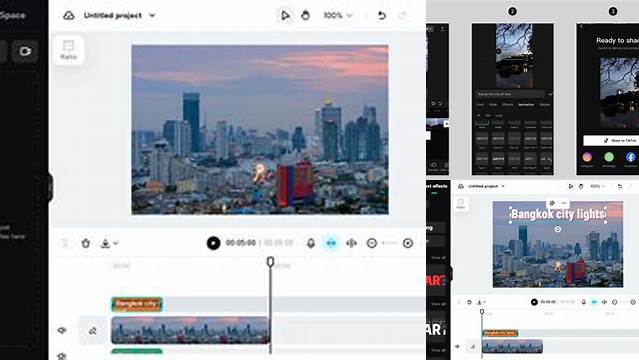
Best Fonts For Video Editors: Ultimate Guide
Choosing the right fonts is a critical yet often overlooked aspect of video editing. Fonts do more than just display text; they communicate tone, style, and brand identity. Selecting the best fonts for video editors can significantly enhance your visual storytelling, making your videos more engaging and professional. In this article, we’ll dive deep into the world of typography, exploring font categories, practical tips for font selection, and recommendations for popular video editing software. So, let's get started, guys!
Why Fonts Matter in Video Editing
So, why should you care so much about fonts, you might ask? Well, fonts are the unsung heroes of video. They're the silent communicators that can make or break your message. The right font can instantly grab your audience's attention, while the wrong one can make your video look amateurish or confusing. Think about it: a playful, bubbly font won't work well in a serious documentary, right? That's why the best fonts for video editors are those that are carefully selected to match the video's overall tone and style. They can convey a wide range of emotions, from excitement and joy to seriousness and suspense. Fonts establish the visual hierarchy, guiding the viewer's eyes and emphasizing crucial information. They add visual interest, making your videos more memorable and enjoyable to watch. Carefully chosen fonts enhance readability, ensuring your message is clear and concise. They boost your brand identity by aligning with your brand's personality and values. They create a cohesive and professional look, making your videos stand out from the crowd.
The importance of font selection extends beyond mere aesthetics. Readability is paramount. A font that is beautiful but hard to read will do more harm than good. Your audience needs to understand the text without straining their eyes. The choice of font impacts the overall mood of your video. A bold, modern font may suit a trailer for an action film, while a more elegant serif font might be better for a wedding video. Font selection also reflects your brand identity. Consistency in font usage across all your video projects helps build brand recognition and trust. Selecting the right fonts is an investment in the quality and effectiveness of your video content. It shows that you care about the details and are committed to delivering a polished final product. Using the best fonts for video editors can significantly enhance your visual storytelling, adding impact and professionalism to your work. So, take the time to choose the right fonts, and you'll see the difference!
The Impact of Font Choices on Video Aesthetics
The aesthetic impact of fonts in video editing is huge, you guys! The fonts you choose can completely transform the look and feel of your video. Let's say you're making a commercial for a luxury product. Using a sleek, elegant serif font can instantly convey sophistication and quality. On the other hand, if you're producing a fun, upbeat video for a children's toy, a playful sans-serif font might be a better choice. The right font can reinforce your video's message and enhance the viewer's emotional connection. Font choice directly influences the overall mood and tone of the video. A bold, impactful font can create a sense of urgency or excitement, while a softer font can create a sense of calm or nostalgia. Font selection can also help establish a visual hierarchy, guiding the viewer's attention to the most important information. Well-chosen fonts improve readability, ensuring that your text is easy to understand, even at a glance. Fonts contribute to your brand's visual identity, reinforcing brand recognition and consistency. It's important to remember that your font choices should align with your overall design and aesthetic goals.
Different font styles evoke different emotions. Serif fonts, with their small decorative strokes, often convey a sense of tradition, elegance, and sophistication. These fonts are great for formal videos, such as documentaries or corporate presentations. Sans-serif fonts, which lack these strokes, feel modern, clean, and approachable. These fonts are perfect for contemporary videos, such as tutorials, social media content, or websites. Script fonts, which mimic handwriting, bring a touch of creativity, personality, and playfulness. These are ideal for videos that want to appear friendly, welcoming, and artistic. Display fonts are unique, attention-grabbing fonts designed to be used sparingly for titles and headlines. They are excellent for making key messages pop. Understanding the emotional impact of each font style will help you make informed decisions and create videos that resonate with your audience. Using the best fonts for video editors, you can create videos that not only inform but also captivate and engage your viewers.
Font Categories: A Quick Guide for Video Editors
Alright, let's break down the different font categories, shall we? This will help you when you start searching for the best fonts for video editors. Understanding these will help you pick the best font for your project.
Serif fonts, like Times New Roman and Georgia, have small decorative strokes called serifs at the end of their letters. They often give a classic, elegant, and professional feel. They're excellent for body text in videos where readability is crucial, such as educational content or documentaries. Due to their legibility, serif fonts are generally a safe bet for longer text passages. Consider the setting: a historical video would benefit from a classic serif, while a fashion video might go with a more modern variation. They bring a touch of sophistication and can work well for titles and headings when you want to convey a sense of tradition or authority. Common examples include Times New Roman, Garamond, and Georgia. Serif fonts are considered more formal and traditional. Therefore, you should avoid these fonts in more modern content, such as tech review videos.
Sans-serif fonts, like Arial and Helvetica, lack the serifs, giving them a clean, modern look. They're ideal for headings, titles, and on-screen text in videos that require a contemporary feel. They are generally easier to read on screens. They are the perfect choice for video projects aimed at a younger audience. Their simplicity makes them highly readable at various sizes and resolutions. These fonts are versatile, lending themselves to almost any video project, from marketing materials to explainer videos. The sans-serif font category is one of the most flexible and universally adaptable categories for video editing. Common examples include Arial, Helvetica, and Open Sans. These fonts convey a sense of modernity and simplicity, which is why they're used everywhere.
Script Fonts
Script fonts, like cursive handwriting, add a personal, elegant, and sometimes playful touch. They're perfect for videos that aim to showcase creativity or add a touch of personality. Think of wedding videos or cooking tutorials where a more artistic feel is desired. While they can add a unique flair, use them with caution, as they can be harder to read, especially at smaller sizes. Script fonts look great in titles and short phrases. Avoid using them in long blocks of text. This style of font is not for all types of content; they work best in creative or artistic projects. Common examples include Brush Script MT, and Lobster. Script fonts bring a touch of personality and are perfect for making your video content more memorable.
Display Fonts
Display fonts are designed to grab attention. They are ideal for headings, titles, and short phrases where you want to make a bold statement. These fonts have many styles, ranging from bold and chunky to artistic and stylized. Use them sparingly, as they can overwhelm the viewer if used excessively. They are perfect for trailers, promotional videos, and any video that needs to stand out. Common examples include Impact, Bebas Neue, and Montserrat Black. These fonts are not suitable for lengthy text sections. The best fonts for video editors in this category are those that can make your message pop.
Tips for Choosing the Best Fonts for Your Videos
Choosing the right font is not just about picking a pretty face; it's about understanding your video's purpose and your brand's identity. Here's a guide to help you navigate the selection process:
Consider Readability
Readability is king, guys! The font needs to be easy to read, especially on screens, and at various sizes and resolutions. Test the font in your video editing software to ensure it looks good and is legible in different contexts. The right font should be readable on any background. So, try different backgrounds when selecting your fonts. Some fonts appear great on white but not on black, and vice versa. Prioritize fonts that offer clear letterforms and sufficient spacing between characters. The best fonts for video editors are those that prioritize clear communication. Make sure the font you choose is readable, even for viewers with visual impairments.
Match the Tone and Style
The font must match your video's tone and style. If your video is formal, then a serif font might be your best bet. If it's more modern and casual, then a sans-serif font could work. The font you choose should reflect the mood and message of your video. Select fonts that align with your brand's personality. Think of your brand's values and the image you want to project. If you are selling a product, the best fonts for video editors are those that align with the product. Don't use a playful font in a commercial for luxury products; it will be out of place. Carefully choose a font that enhances the overall visual appeal and aligns with your branding strategy.
Consider the Context
Think about where your video will be viewed. Will it be on a large screen or a mobile device? Different fonts perform better in different contexts. Choose fonts that are optimized for the viewing environment. The fonts you use should be legible on a variety of devices. Make sure the font you choose works with the platforms your audience uses. Consider your target audience when selecting fonts, since different demographics prefer certain styles. Remember to test your font in various contexts to ensure it looks good everywhere.
Limit Your Font Choices
Avoid using too many different fonts in a single video. Stick to two or three fonts max for a cohesive look. Use one font for headings and another for body text. Consistency in font usage strengthens your brand's identity. Maintaining a unified font style helps maintain consistency throughout your videos. This helps establish a professional and easily identifiable brand aesthetic. Limit the font choices to avoid visual clutter and ensure that your message is clear and easy to follow.
Test, Test, and Test Again
Before you finalize your font selection, test it in your video editing software. Try it on different backgrounds and with various text lengths. Ensure it works well in motion, as some fonts can look different when animated. See how the font appears at different sizes and resolutions. Be sure that you like the font, as this is crucial for any project. Use your selected fonts across multiple videos to create a consistent branding experience.
Top Font Recommendations for Video Editors
Choosing the right fonts can be the difference between a good video and a great one. Here are some of the best fonts for video editors, categorized by style, along with some additional tips and tricks:
For Professionalism
- Roboto: A versatile sans-serif font, highly readable, and works well for text-heavy content. It is a great all-around choice for professional videos.
- Open Sans: Another popular sans-serif font known for its clarity and readability, suitable for various video styles. It's an excellent option for creating a polished look.
- Lato: A clean and elegant sans-serif font that offers a professional appearance. It's excellent for corporate videos and presentations.
For Modern and Creative Projects
- Montserrat: A modern sans-serif font that is great for titles, headings, and short text. Its geometric design gives a contemporary feel.
- Bebas Neue: A bold sans-serif font perfect for attention-grabbing titles and headlines. Its strong presence is great for promotional videos.
- Poppins: A geometric sans-serif font that is versatile and readable, suitable for various applications, including modern and creative projects.
For a Touch of Elegance
- Playfair Display: A classic serif font with a sophisticated design, ideal for adding a touch of elegance. It works well for titles and headings.
- Lora: A well-balanced serif font, suitable for both titles and body text, making it an excellent choice for more formal or artistic videos.
- Crimson Text: A classic serif font that delivers a traditional yet readable aesthetic. Best suited for content that requires a classic feel.
For Playful and Casual Projects
- Raleway: A stylish sans-serif font that has a light and playful feel. Great for videos that are fun and approachable.
- Cabin: A geometric sans-serif font, offering a contemporary look. It is great for a wide range of video projects.
- Fredoka One: A bold and friendly sans-serif font that adds personality to your videos.
Font Usage in Popular Video Editing Software
Let's get into how these fonts work within the most popular video editing software. Knowing where to find and use your fonts is essential.
Adobe Premiere Pro
- Adobe Premiere Pro has a massive selection of fonts built-in, and you can easily install any font you like. Access the text tools and the Essential Graphics panel to add and customize text layers. You can adjust size, color, and more to match your video's style. You can use any font installed on your system within Premiere Pro. Use the type tool and character panel to customize your fonts.
Final Cut Pro
- Final Cut Pro also integrates well with system fonts. Adding text and choosing fonts is simple. Use the text generator to add titles and text. Change the fonts using the text inspector panel. You can import custom fonts or use the available fonts for more control over your text and titles.
DaVinci Resolve
- DaVinci Resolve offers a comprehensive text tool with extensive font options. Go to the edit page and use the text tool. You can install any font you like and use it within the software. Customize your text by adjusting size, style, and animation effects. It's easy to manage and find fonts that fit your video’s vibe.
Filmora
- Filmora is user-friendly and has many font choices, making it perfect for beginners. The text tool lets you add and edit text. Customize your text with the many built-in fonts and styles. Easily adjust font size, color, and other properties to create the look you desire.
Conclusion: Level Up Your Video Editing with the Right Fonts
Choosing the right fonts is an important step in creating engaging video content. From understanding the different font categories to knowing how to apply them in your editing software, these tips will give you everything you need to improve your visual storytelling. Remember, the best fonts for video editors are those that align with your brand, communicate your message clearly, and enhance your video's overall aesthetic. So, experiment, test different fonts, and find the perfect typography to make your videos stand out. Good luck, and happy editing!